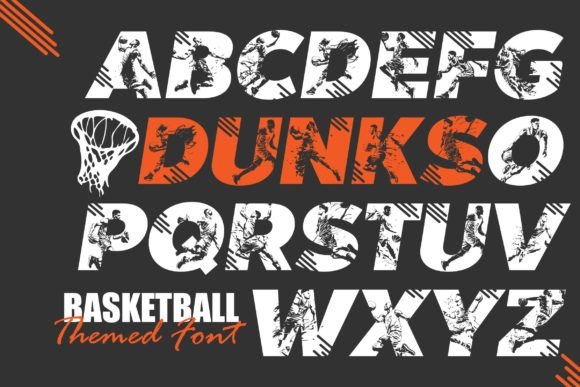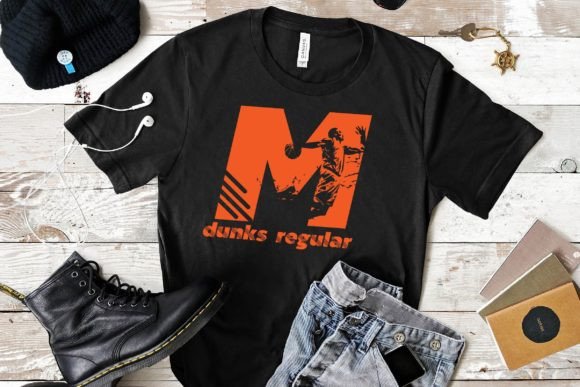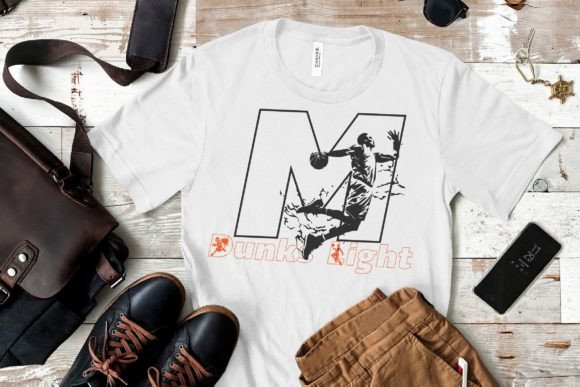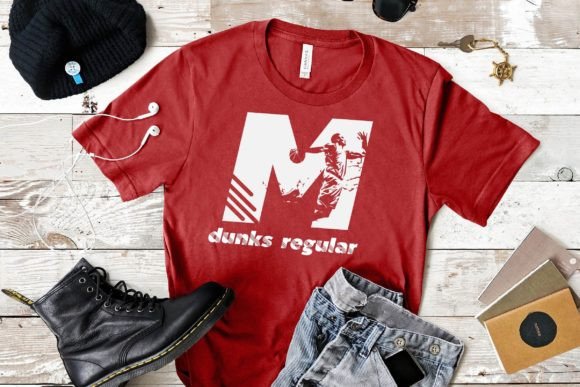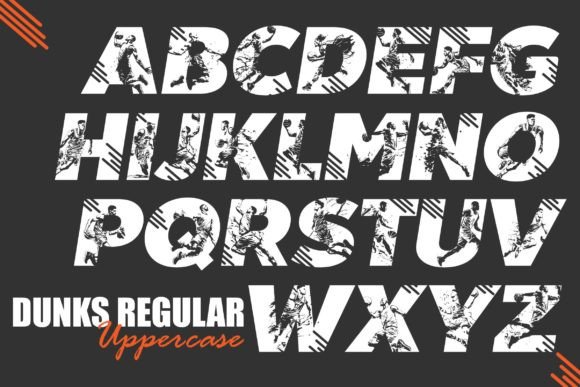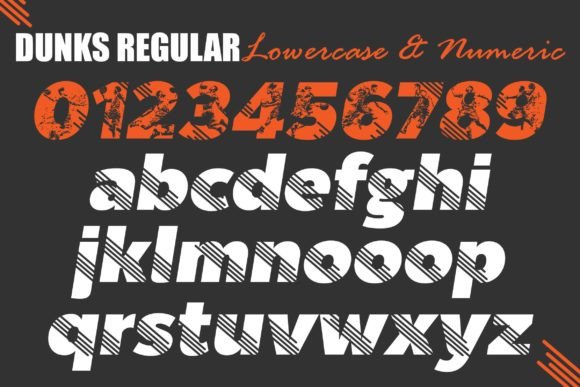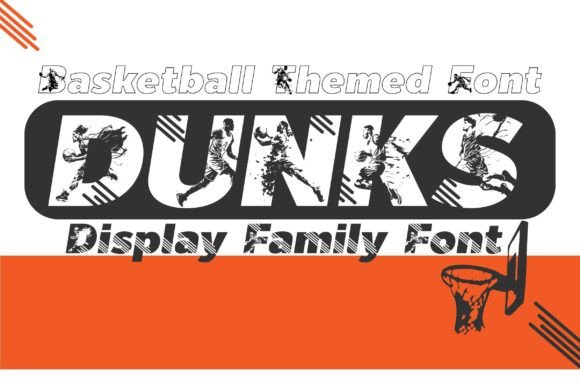
Dunks Font: The Ultimate Choice for Basketball-Inspired Designs
Are you a designer or crafter looking for a font that can add a bold and cool touch to your basketball-related designs? Look no further than Dunks Font! This decorative font is specifically designed to bring a fresh and exciting feel to your projects, and we’re excited to share its features and benefits with you.
What is Dunks Font?
Dunks Font is a unique and stylish font that is perfect for designers and crafters who want to create eye-catching basketball-themed designs. Its bold and cool appearance makes it an ideal choice for a wide range of projects, from posters and flyers to t-shirts and social media graphics.
Key Features of Dunks Font
• Bold and Cool Design: Dunks Font features a bold and cool design that is sure to grab attention. Its unique style is perfect for creating eye-catching designs that stand out from the crowd.
• Basketball-Inspired: As its name suggests, Dunks Font is specifically designed with basketball in mind. Its design elements are inspired by the sport, making it a perfect fit for basketball-themed projects.
• Decorative and Versatile: Dunks Font is a decorative font that can be used in a variety of contexts. Whether you’re creating a poster, flyer, or social media graphic, this font is sure to add a touch of style and sophistication.
• Easily Customizable: Dunks Font is easy to customize, allowing you to adjust its size, color, and style to fit your design needs.
How to Use Dunks Font in Your Designs
Using Dunks Font in your designs is easy! Here are a few tips to get you started:
• Pair it with Other Fonts: Dunks Font pairs well with other fonts, so feel free to experiment with different combinations to find the perfect look for your design.
• Use it for Headlines and Titles: Dunks Font is perfect for headlines and titles, where its bold and cool design can really shine.
• Add it to Your Social Media Graphics: Dunks Font is a great addition to social media graphics, where it can help your posts stand out from the crowd.
• Experiment with Different Colors: Dunks Font looks great in a variety of colors, so don’t be afraid to experiment and find the perfect hue for your design.
Why Designers and Crafters Love Dunks Font
Designers and crafters love Dunks Font for a variety of reasons. Here are a few:
• Unique and Eye-Catching: Dunks Font is a unique and eye-catching font that can add a touch of style and sophistication to any design.
• Easily Customizable: Dunks Font is easy to customize, making it a great choice for designers and crafters who want to create unique and personalized designs.
• Perfect for Basketball-Themed Designs: Dunks Font is specifically designed with basketball in mind, making it a perfect fit for designers and crafters who want to create basketball-themed designs.
In conclusion, Dunks Font is a cool and bold decorative font that is perfect for designers and crafters who want to create eye-catching basketball-themed designs. Its unique and stylish design, ease of customization, and versatility make it a great choice for a wide range of projects. Whether you’re creating posters, flyers, t-shirts, or social media graphics, Dunks Font is sure to add a touch of style and sophistication. So why wait? Add Dunks Font to your design toolkit today and see the difference it can make!